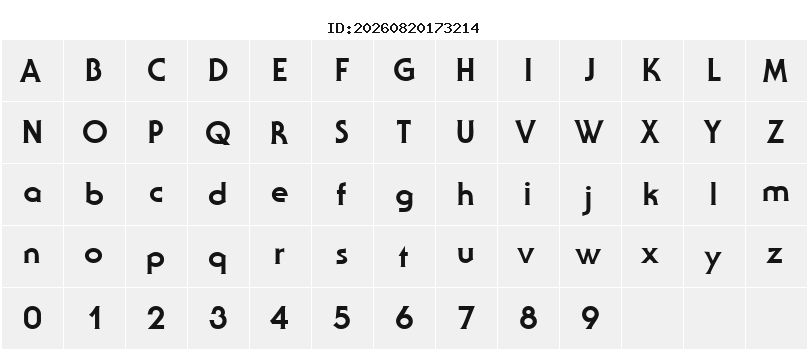
SerenadeTwoExtrabold Preview
• Font Name: SerenadeTwoExtrabold
• Full Font Name: SerenadeTwoExtrabold-Regular
• PostScript Name: SerenadeTwoExtrabold-Regular
About SerenadeTwoExtrabold.ttf
SerenadeTwoExtrabold.ttf is a modern, elegant sans-serif font designed for ultimate readability and visual harmony. Perfect for branding, headlines, web design, and print materials.